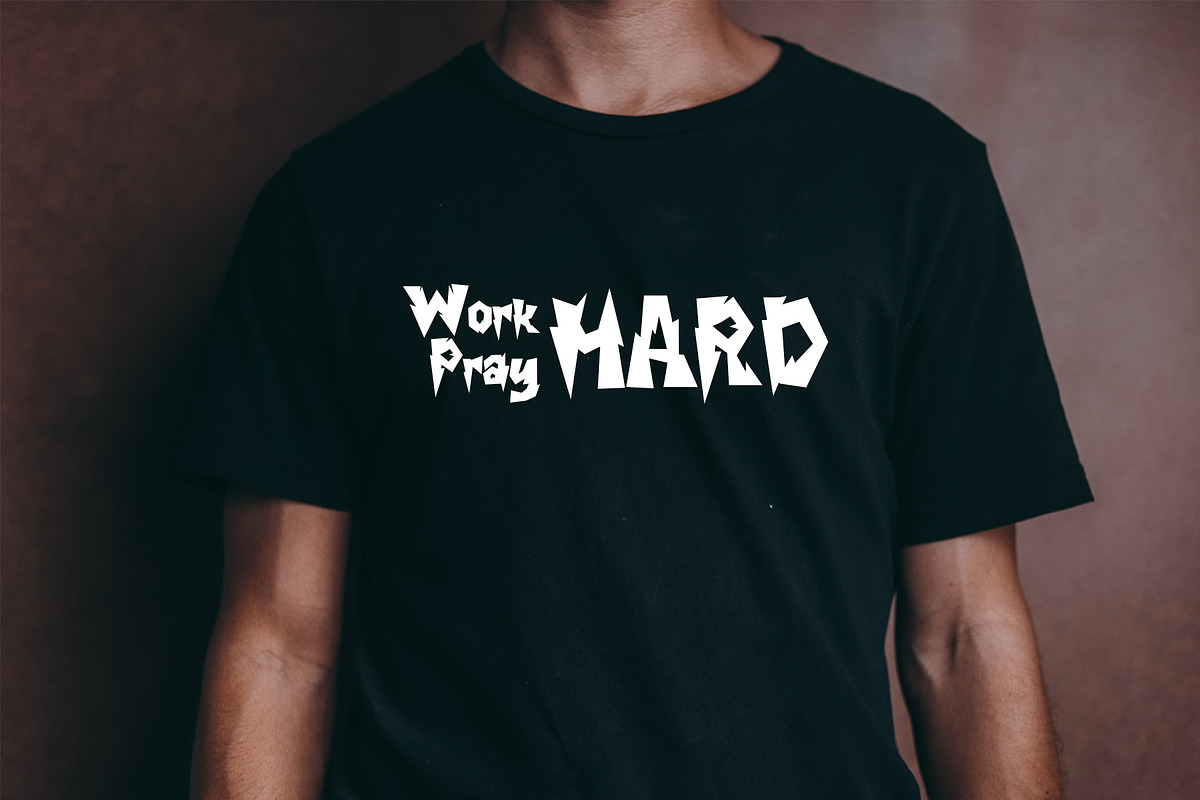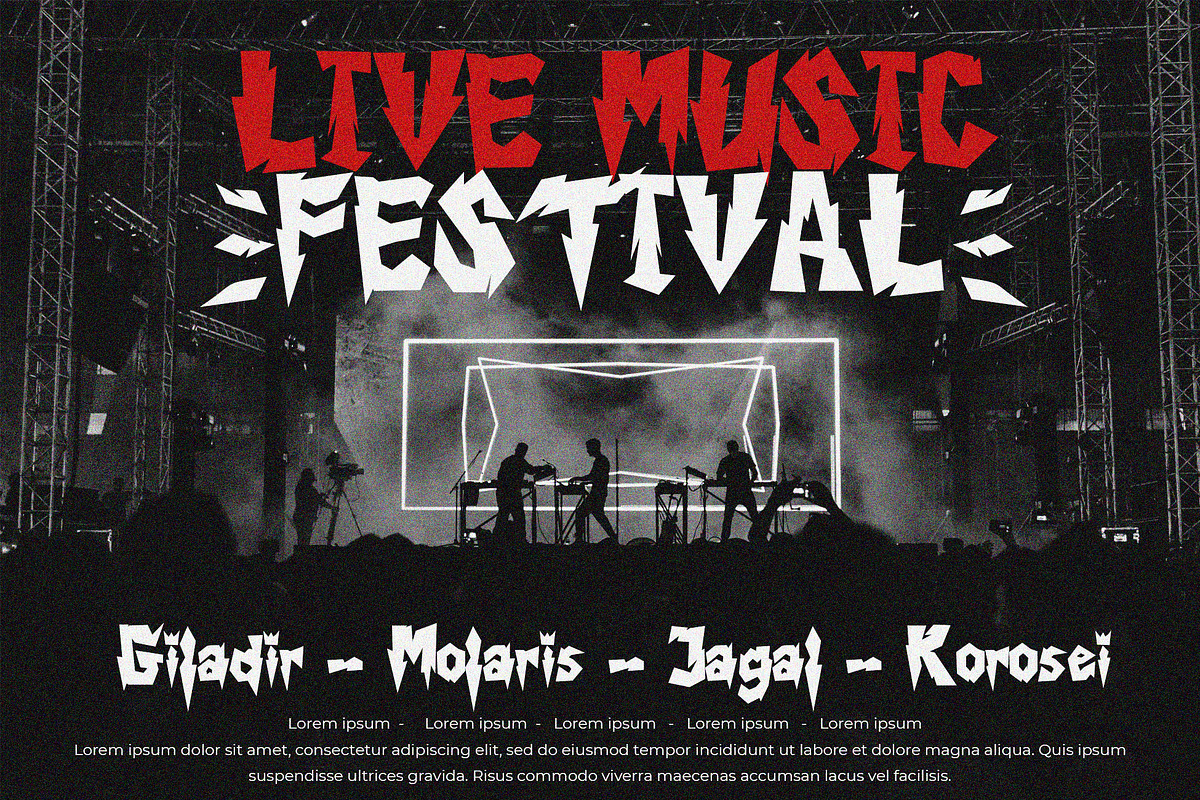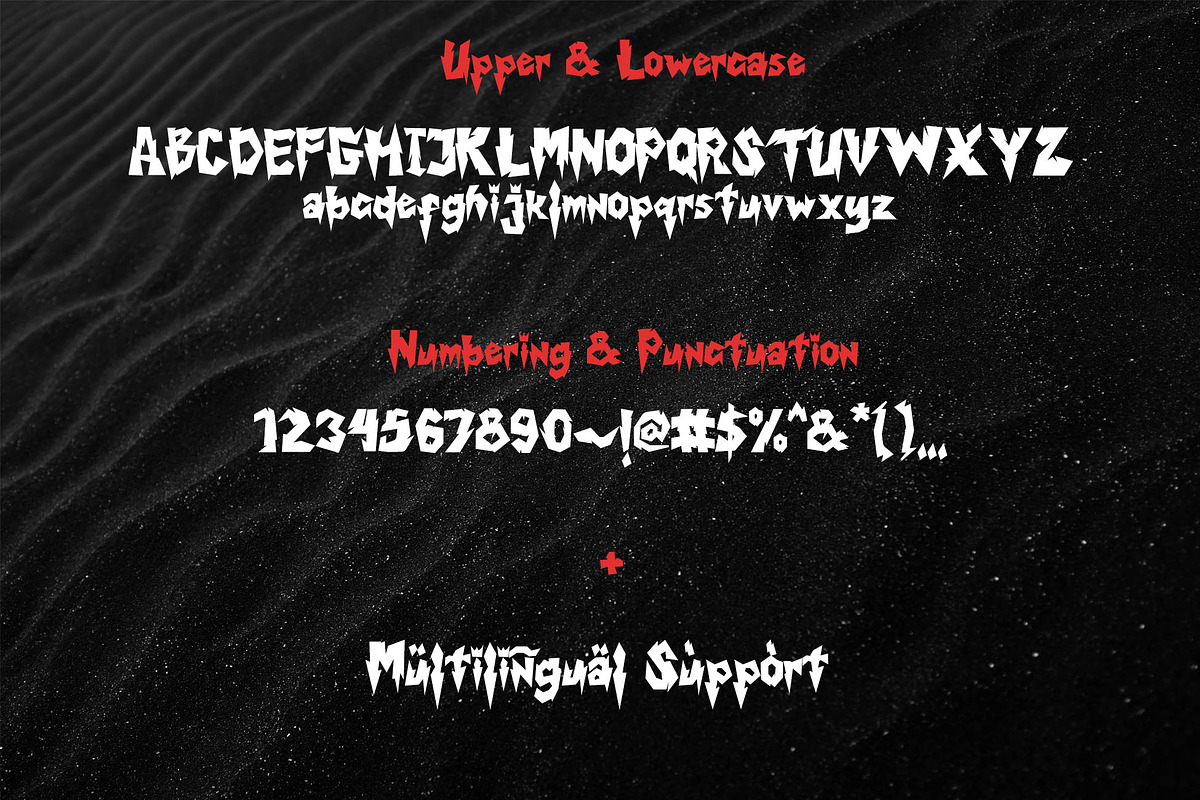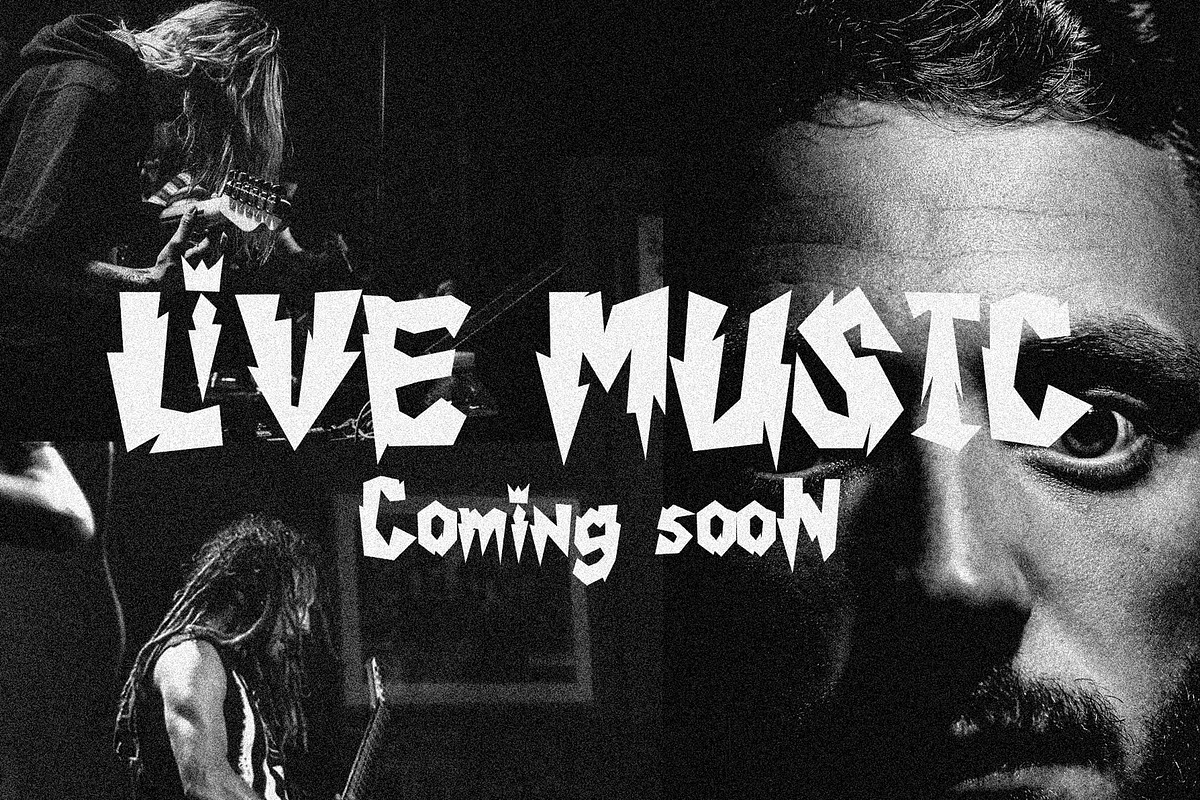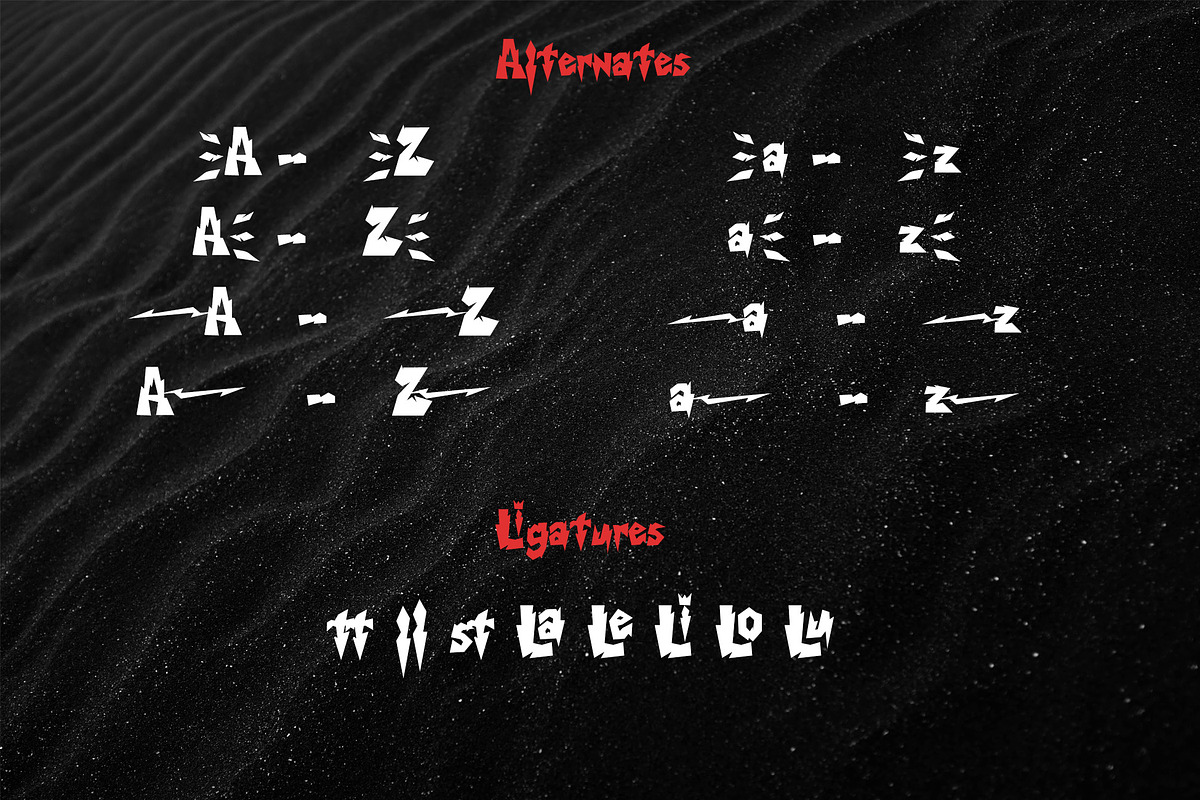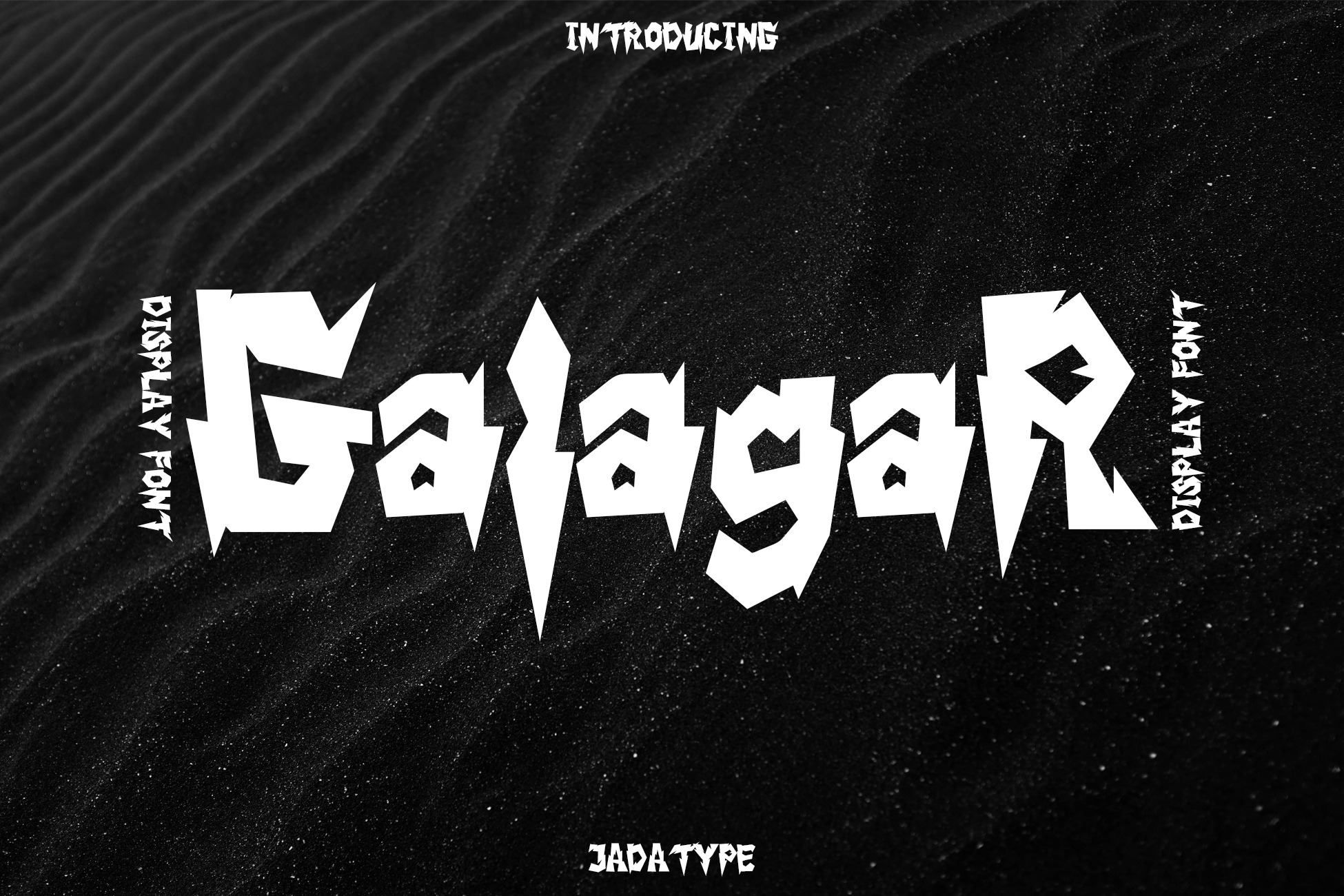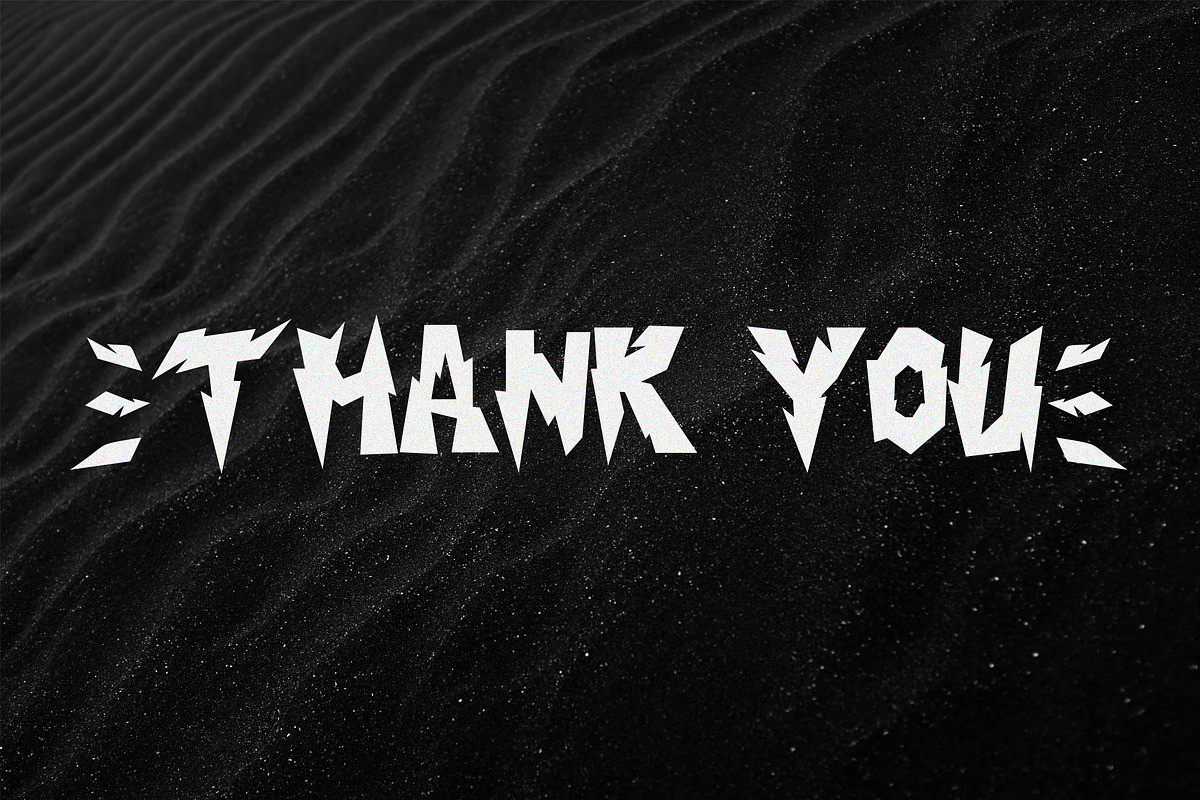
Galagar Font | Hard Display
Galagar is a font with a strong look. The font is suitable for your branding name, poster title, event, or group name, supported by the font that gives a strong effect to the reader. has its own market and fans. can be used in adobe illustrator, photoshop, or microsoft word.
- Alternates Characters